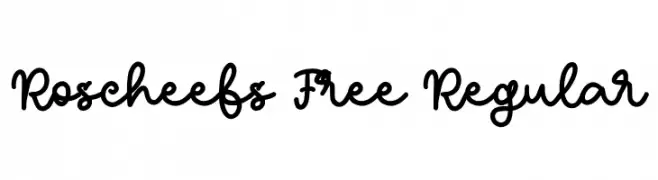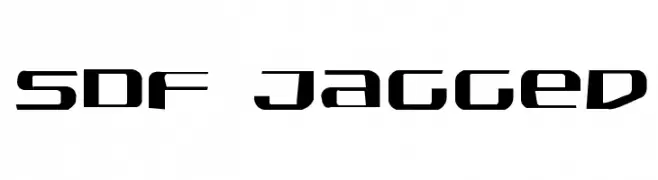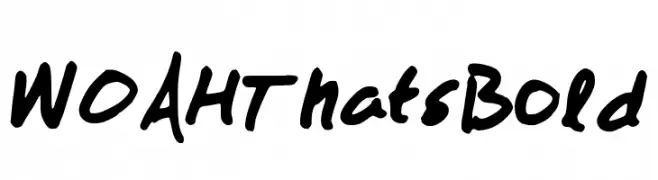
A bold, geometric font with a futuristic, angular design.
A bold, geometric font with a futuristic and technological feel.
A segmented, digital-style font inspired by classic LED displays.
A refined serif font with high contrast and elegant serifs.
A bold, geometric font with a layered, dynamic design.
A bold, brush-style font with expressive, hand-painted strokes.
A bold, italic font with sharp angles and a dynamic, forward-leaning style.
Playful handwritten script font.
A bold, angular font with a futuristic and jagged design.
A bold, handwritten font with a playful and energetic style.